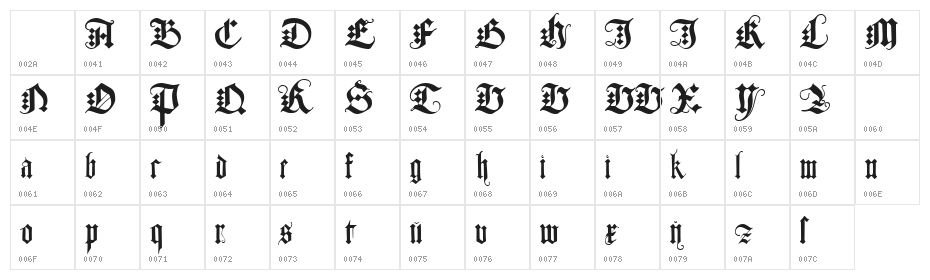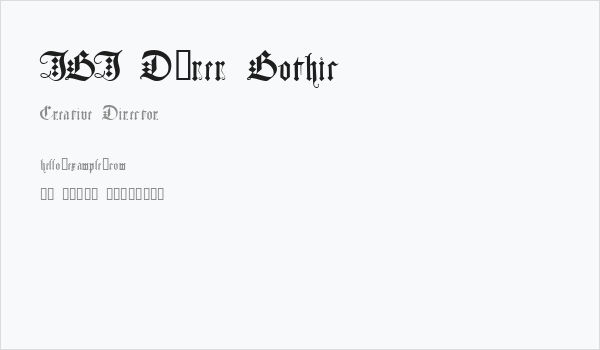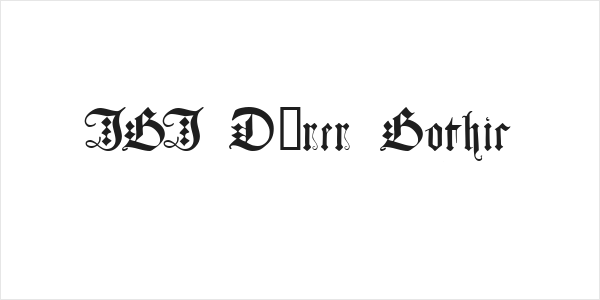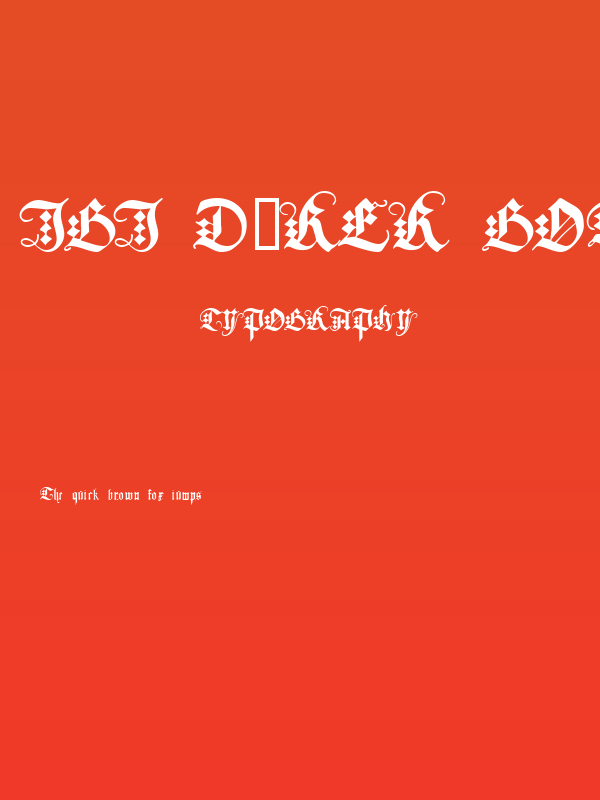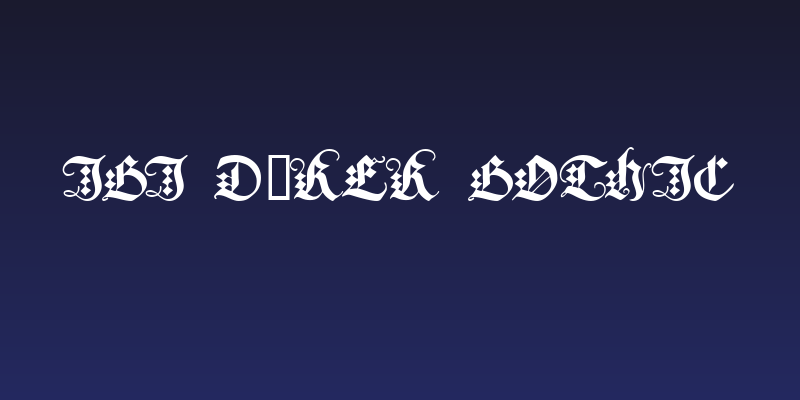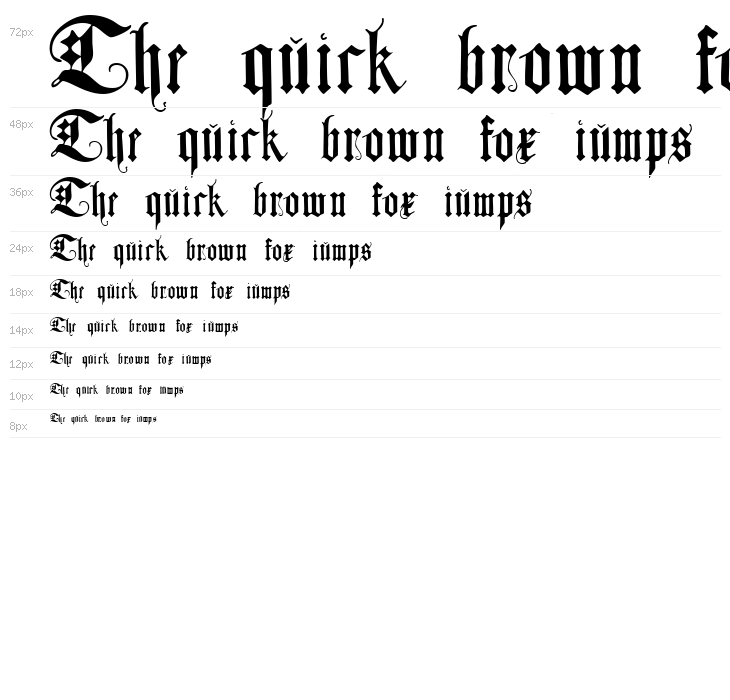
JGJ Dürer Gothic Font
JGJ Dürer Gothic Description
This font embodies the traditional elegance and intricate detailing of Blackletter style, characterized by its ornate and angular letterforms. The uppercase letters exhibit a strong, bold presence with elaborate flourishes and sharp serifs, while the lowercase letters maintain a consistent weight with a slightly more subdued design. The overall aesthetic is reminiscent of medieval manuscripts, offering a sense of historical depth and sophistication. The font's unique style is further accentuated by its high contrast between thick and thin strokes, creating a dramatic visual impact. This font is ideal for projects that require a touch of classic elegance and a nod to historical typography.
| Proposed Projects | Ideal for use in certificates, invitations, book covers, and branding that requires a historical or gothic touch. |